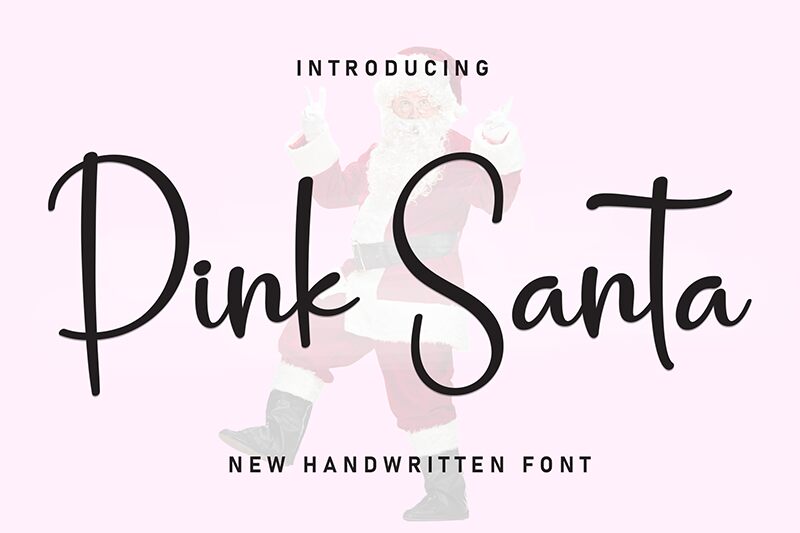
Pink Santa
Pink Santa font by Scratchones is a modern script handwritten font that conveys an approachable, friendly aesthetic. Its casual and flowing letters have this relaxed elegant look which could be perfect for all the right projects.